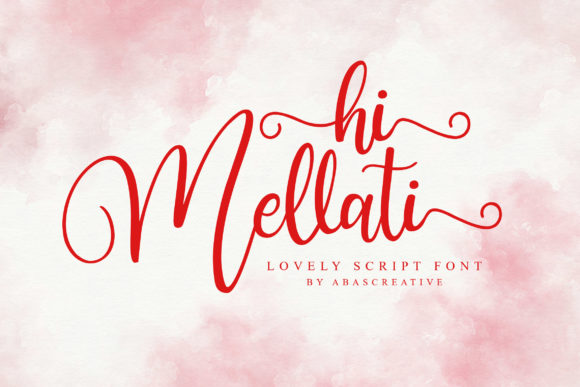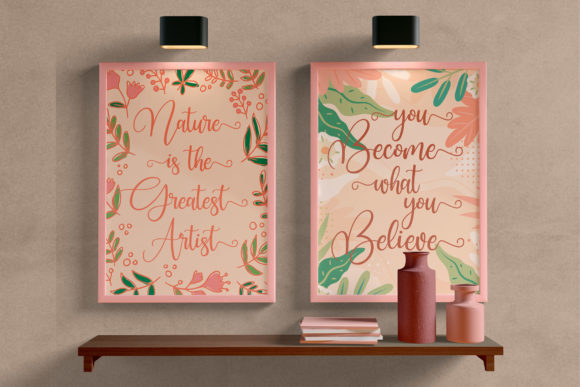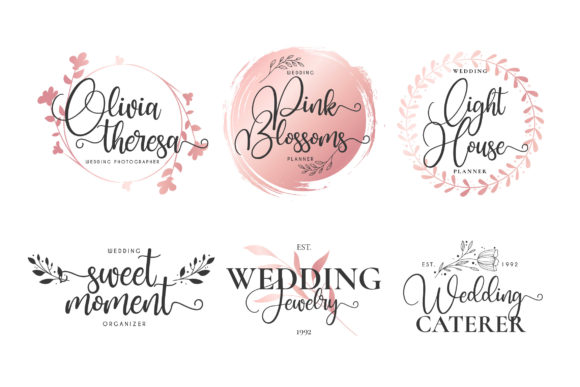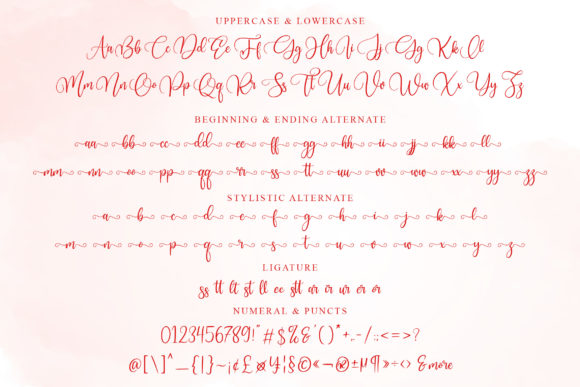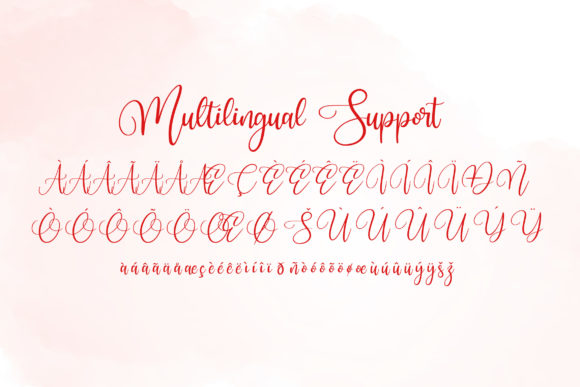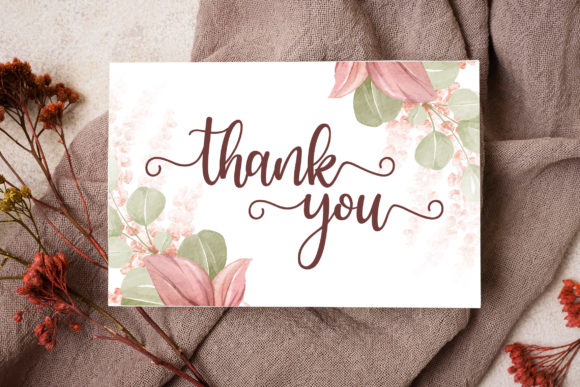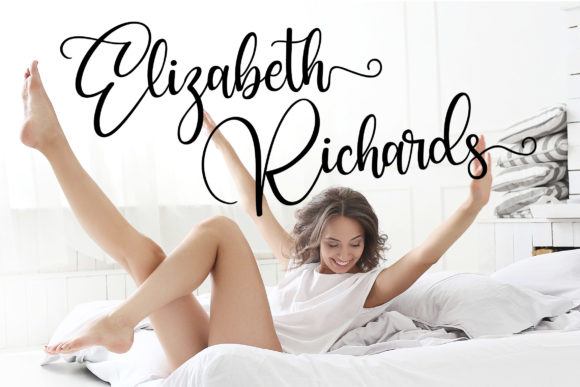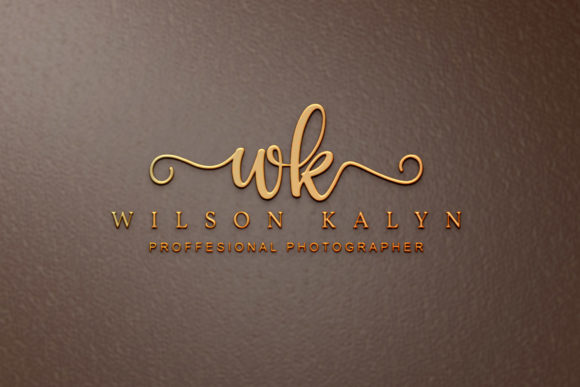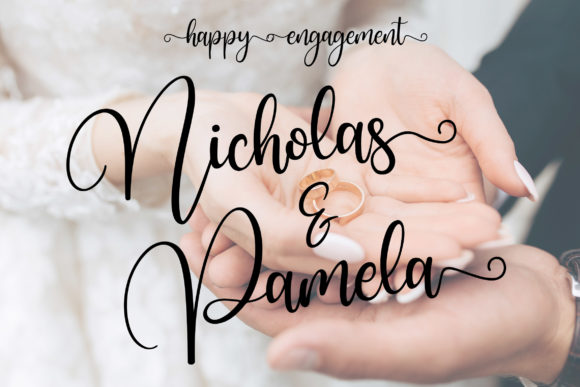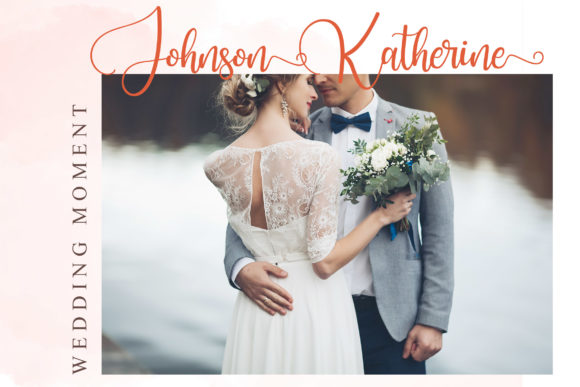
Hi Mellati Font
About Hi Mellati Font
Hi Mellati is a charming and enchanting script font that exudes beauty and romance. With its lovely and flowing style, it is the perfect choice for a variety of design projects, especially those that require a touch of elegance and romance. Here are some creative ways you can use Hi Mellati to enhance your designs:
1. Branding: Create a captivating and romantic brand identity using Hi Mellati for your logo, tagline, and other branding elements, making your brand stand out with its unique and graceful charm.
2. Wedding Invitations: Design stunning and romantic wedding invitations using Hi Mellati, setting the perfect tone for a dreamy and memorable celebration of love.
3. Love Letters: Compose heartfelt love letters or romantic messages using Hi Mellati, adding a touch of elegance and sincerity to your words.
4. Greeting Cards: Craft beautiful and touching greeting cards for special occasions like anniversaries, Valentine’s Day, or any heartfelt messages to loved ones.
5. Quotes and Posters: Design inspiring quote graphics and posters using Hi Mellati, conveying messages of love, hope, and positivity in a graceful and artistic manner.
6. Social Media Graphics: Create captivating and shareable social media posts using Hi Mellati, making your content more engaging and appealing to your audience.
7. Book Covers: Use Hi Mellati for book titles or cover designs for romantic novels, adding a touch of elegance and allure to the overall presentation.
8. Event Invitations: Design invitations for romantic events, such as bridal showers, engagement parties, or anniversary celebrations, with the lovely Hi Mellati font.
9. Personalized Gifts: Incorporate Hi Mellati into personalized gifts like mugs, photo frames, or custom prints, adding a special touch to your heartfelt presents.
10. Product Packaging: Use Hi Mellati for product packaging design, especially for romantic-themed products like scented candles, beauty products, or artisanal chocolates.
11. Restaurant Menus: Design elegant and romantic menus for fine dining establishments, capturing the essence of romance with Hi Mellati.
12. Beauty and Fashion Brands: Apply Hi Mellati in beauty and fashion brand logos, as well as promotional materials, to evoke a sense of elegance and sophistication.
13. Event Decorations: Use Hi Mellati for event decorations like banners, signs, or table settings to add a romantic and charming ambiance to any special occasion.
14. Calligraphy Art: Create beautiful calligraphy art pieces using Hi Mellati, showcasing the fluidity and grace of the font’s strokes.
15. Product Labels: Incorporate Hi Mellati into labels for romantic-themed products, adding an alluring and captivating touch to the overall design.